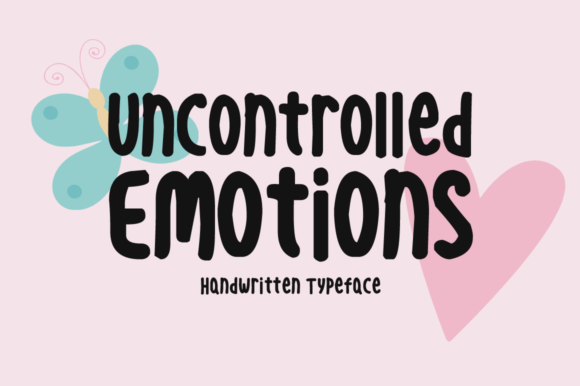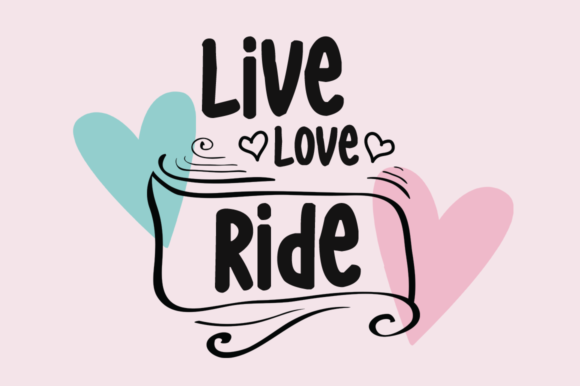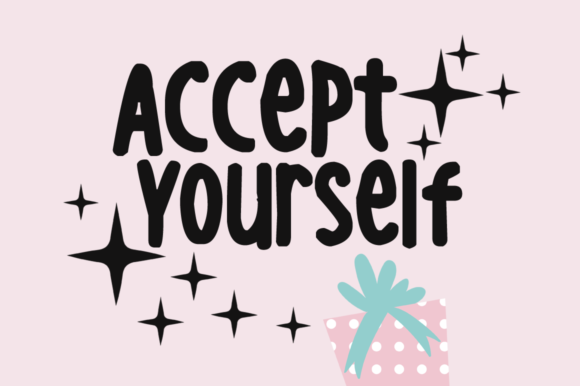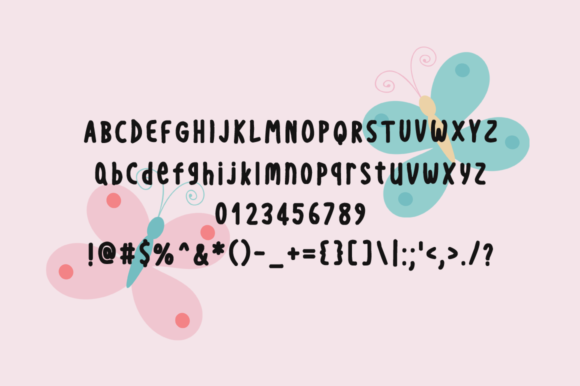
Uncontrolled Emotions Font
About Uncontrolled Emotions Font
Uncontrolled Emotions is a fun and lovely handwritten font that will inspire any new design project with its bold and dorky charm.